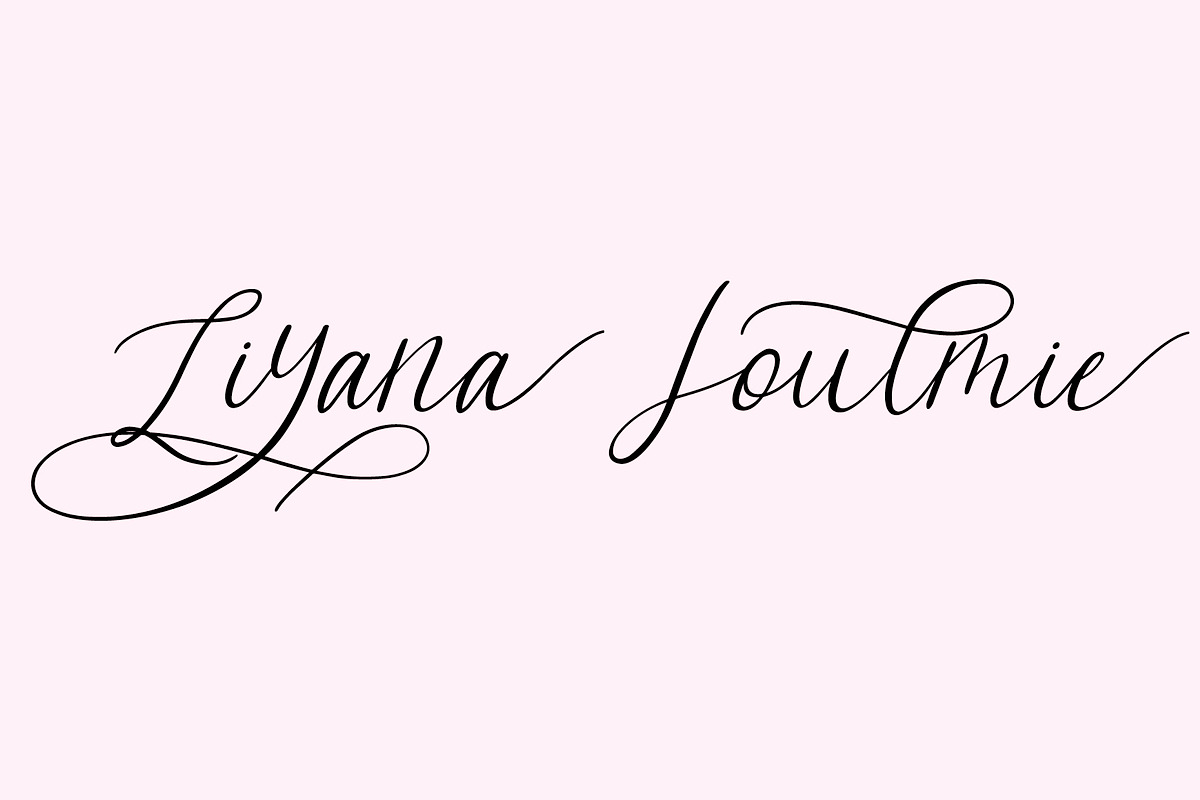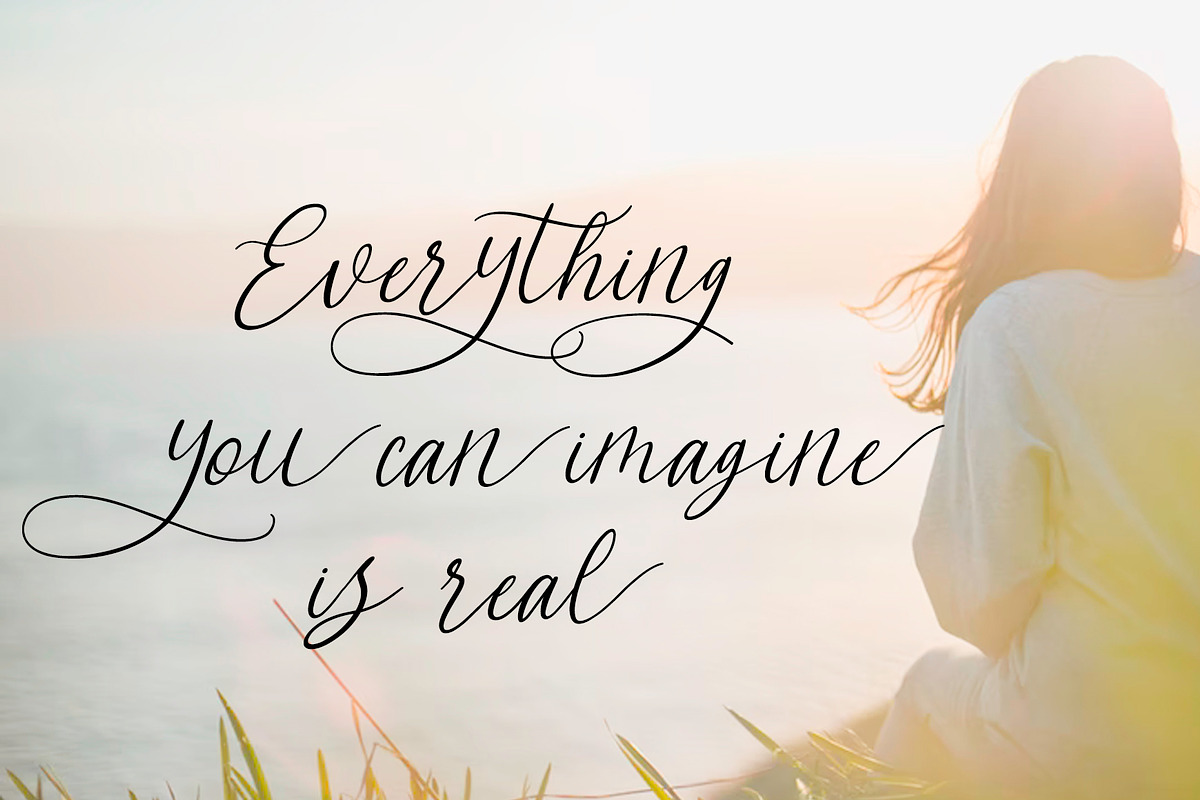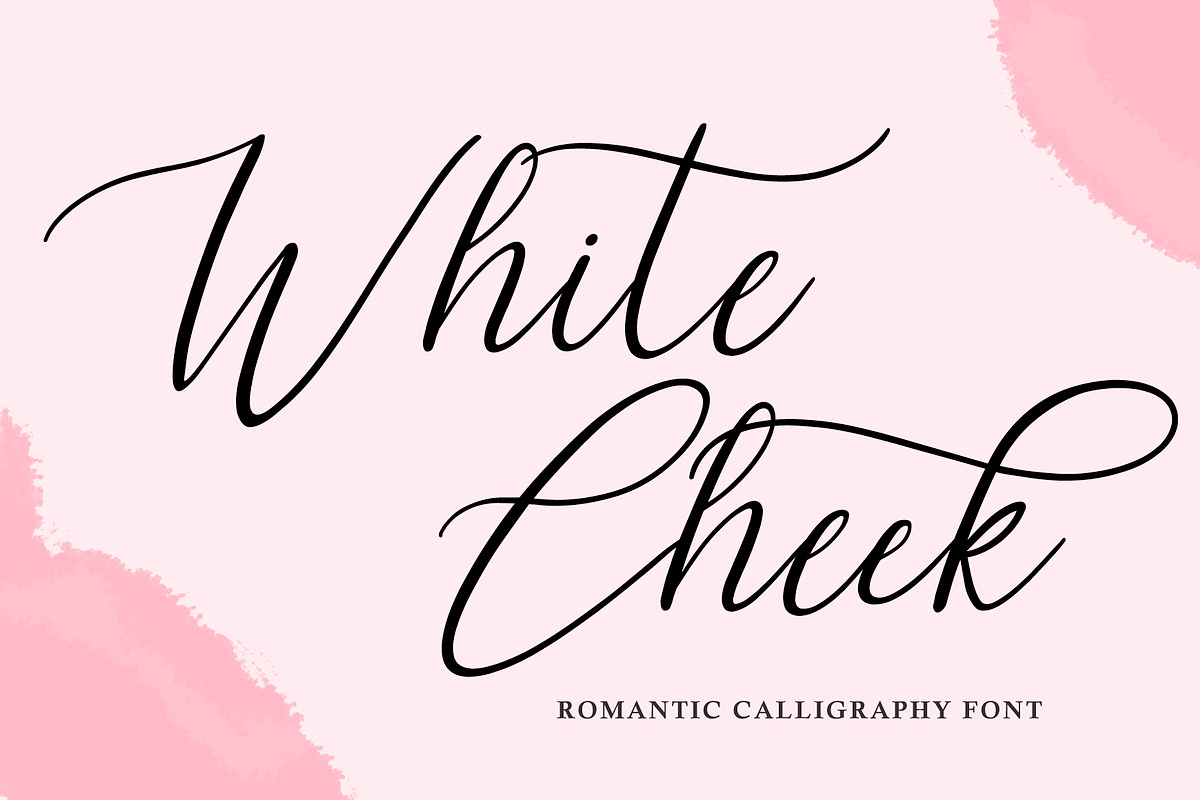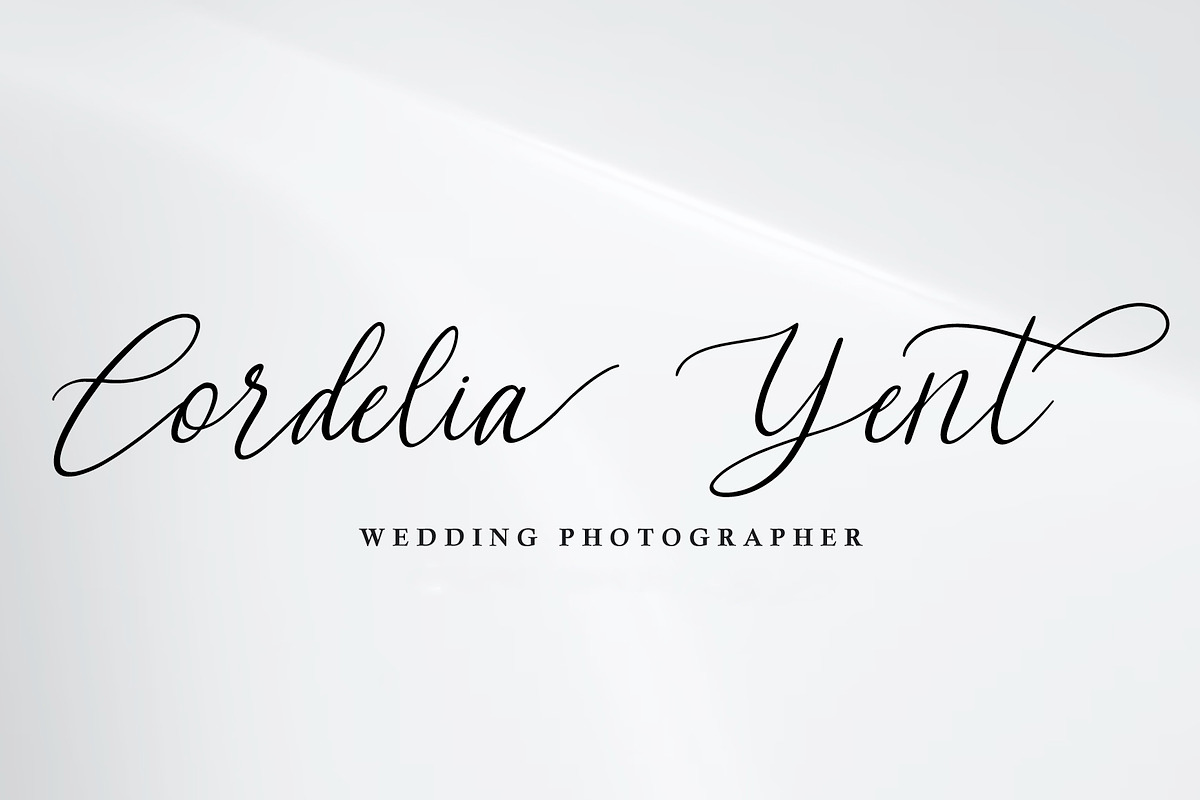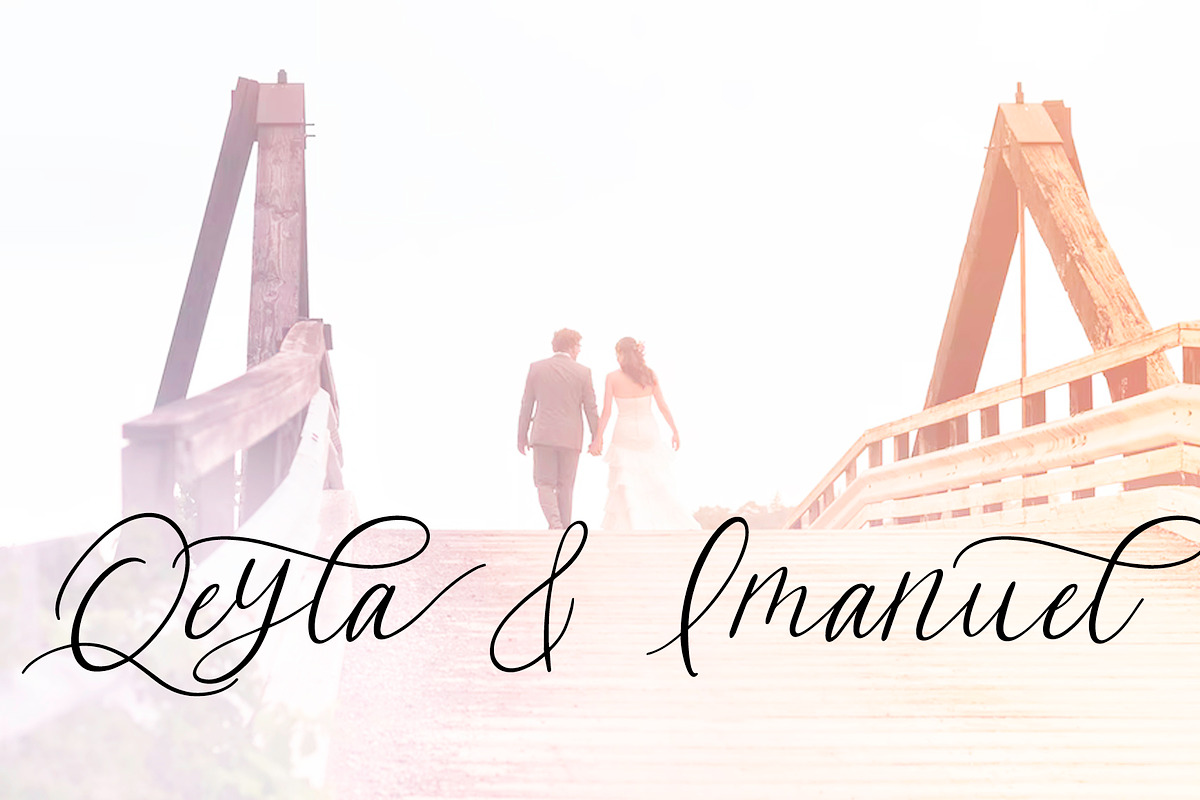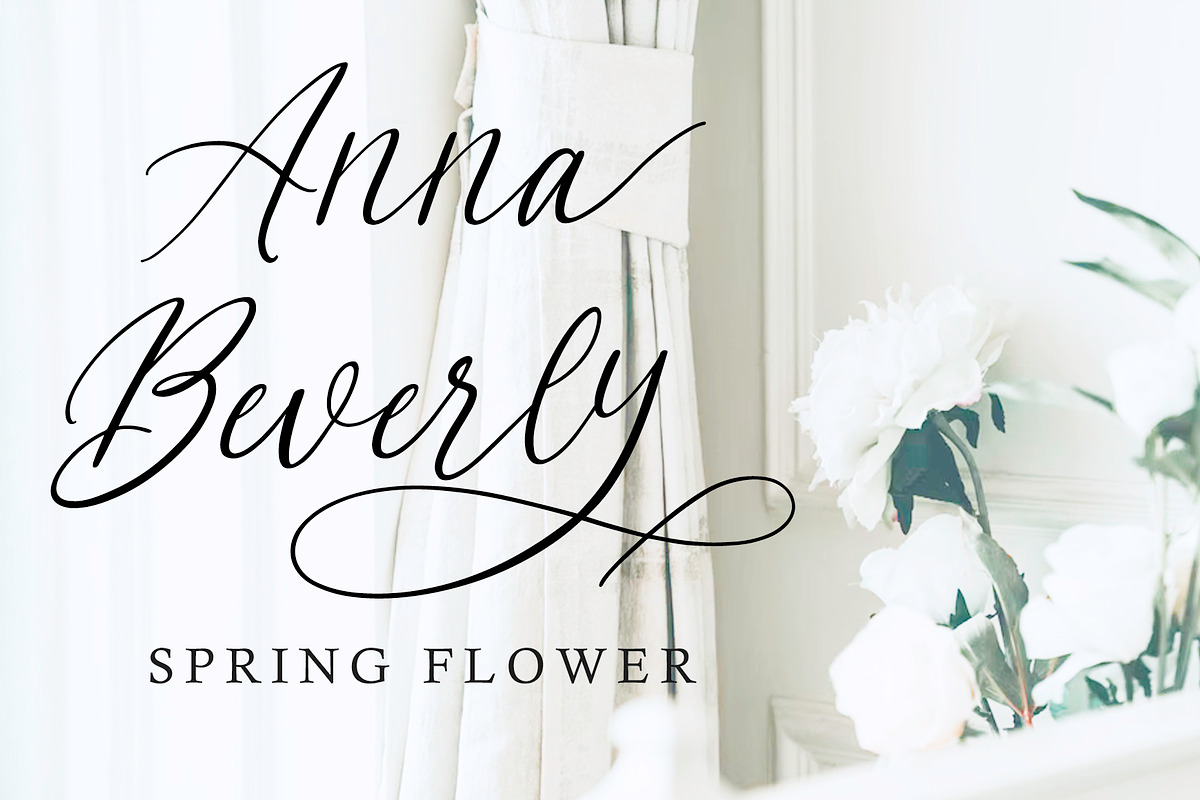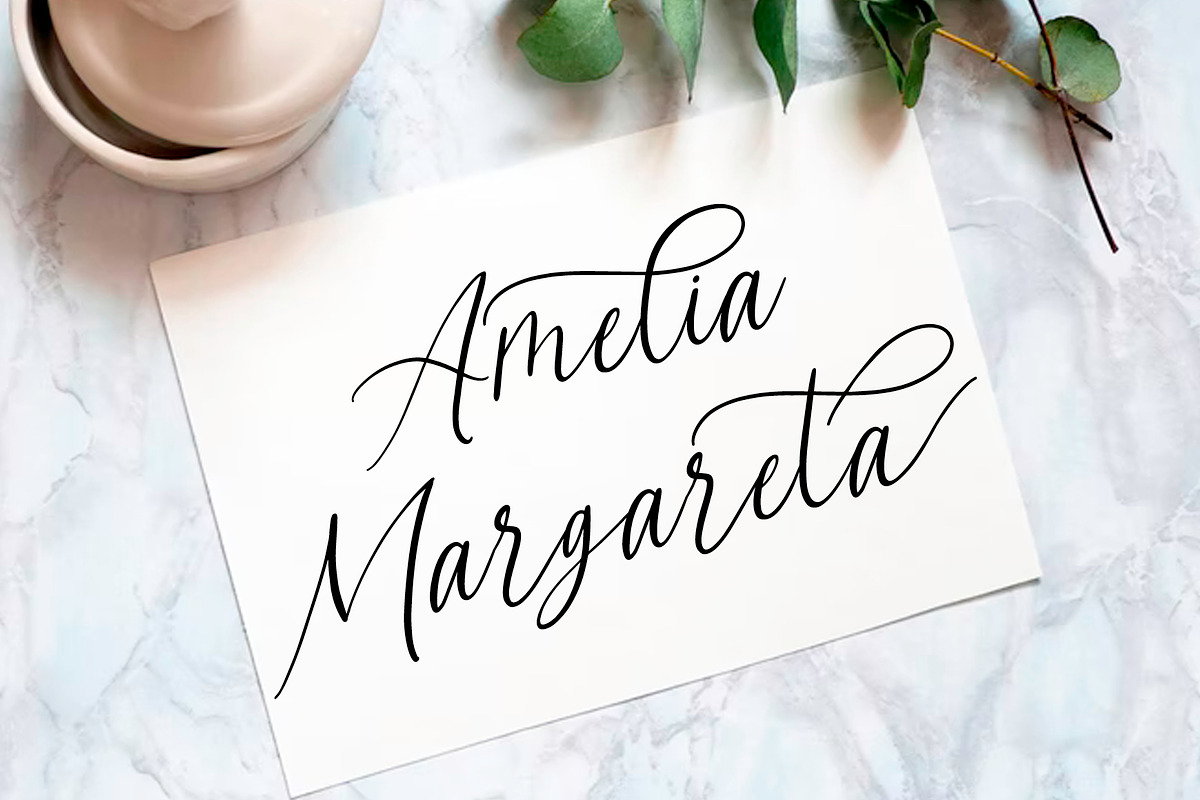
White Cheek Modern Calligraphy Scrip
Introducing White Cheek, a classy modern calligraphy font, White Cheek is perfect for invitation cards, branding, stationery design, websites, labels, photography and editorial design. Includes all upper and lower case letters, multilingual support, punctuation, binding and initial and final swash. everything can be easily accessed using software that supports OpenType. Like Adobe Indesign, Adobe Illustrator CS, Adobe Photoshop CC, and Corel Draw.